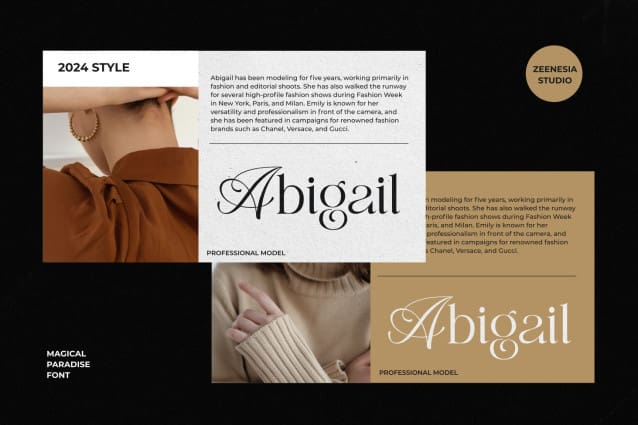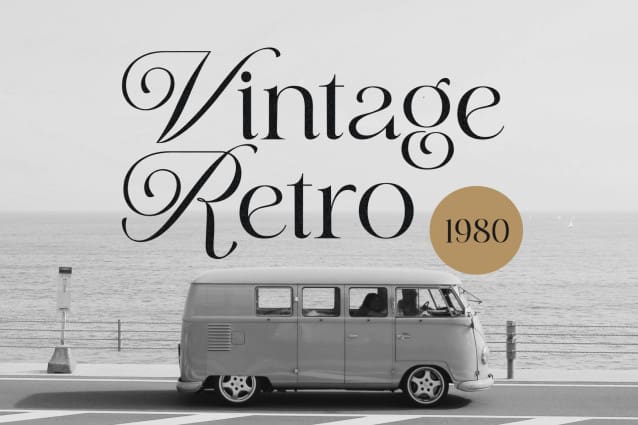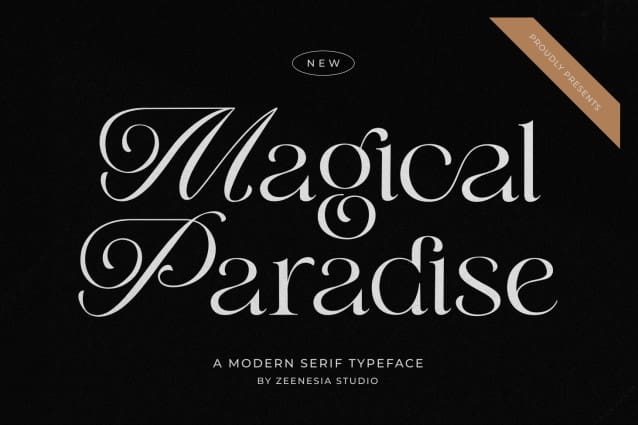
Magical Paradise Font
Magical Paradise Font is a modern display font with serif combine with script style. It’s modern and classic font with a unique and deference look. Perfect if you need a dose of fun in your project. Perfect for editorial projects, Logo design, web font, clothing branding, product packaging, magazine headers, or simply …